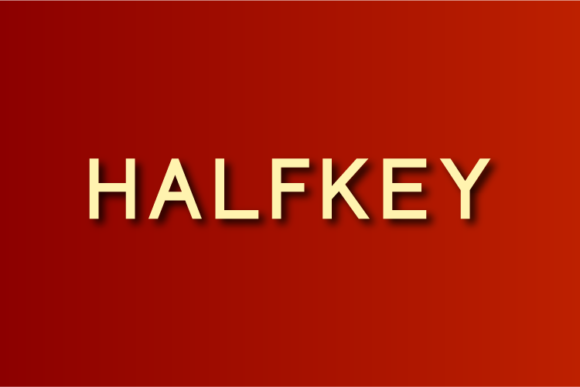
The Birth of a Beautiful Design Moment
Have you ever been scrolling through your social media feeds, and suddenly a beautifully designed graphic stops you in your tracks? Maybe it’s a stunning logo, an elegant invitation, or a clever advertisement that makes you pause and take a closer look. Whatever it is, it’s likely that the Halfkey Font played a starring role in making that design moment truly unforgettable.
As a versatile and modern sans serif typeface, the Halfkey Font is the perfect tool for designers looking to elevate their projects with a touch of sophistication and elegance. With its extensive character set, including upper characters, numbers 0-9, and a range of punctuation and symbols, this font is the ultimate go-to for any creative project. Whether you’re designing a logo, creating a wedding invitation, or crafting a compelling advertisement, the Halfkey Font is sure to bring your vision to life.
Key Features of Halfkey Font
- Unique Characteristics: Halfkey Font features a unique blend of geometric and organic shapes, resulting in a distinctive and modern aesthetic.
- Character Set: The font includes a wide range of characters, including uppercase and lowercase letters, numbers, punctuation marks, and special characters, making it suitable for use in a variety of contexts.
- Language Support: Halfkey Font supports a wide range of languages, including English, Spanish, French, German, Chinese, Japanese, and many others, making it a versatile choice for global communication.
Halfkey Font Review
Overall, I’d say the Halfkey Font is a solid choice for designers looking for a clean and modern sans-serif font. ✨
- Legibility – The font is highly legible, making it perfect for body text and digital interfaces.
- Neutral Aesthetic – Halfkey’s neutral tone makes it suitable for a wide range of designs, from corporate to creative projects.
- Font Pairing – The font’s clean lines and geometric shapes make it easy to pair with other sans-serif fonts, creating a harmonious design.
- Lack of Expressiveness ⚠️ – Halfkey’s neutral tone can make it feel somewhat generic, lacking the expressiveness of more unique fonts.
- Not Ideal for Headlines ⚠️ – The font’s simplicity makes it less suitable for headlines, where a more dramatic font is often preferred.
Overall, I’d give the Halfkey Font 3.5 out of 5 stars. While it’s a solid choice for everyday design needs, it may not be the best fit for projects that require a bolder or more expressive font.
Getting the Most Out of Halfkey Font
To get the most out of the Halfkey font, consider the following tips:
- Use it for headings and titles to add a touch of sophistication.
- Pair it with other fonts to create a unique and stylish combination.
- Experiment with different font sizes and colors to achieve the desired effect.
The Halfkey font is commonly used in:
- Designing business cards and letterheads.
- Creating posters and flyers.
- Developing branding materials and logos.
Alternatives to Halfkey Font for Designers
1. Arial Rounded
Arial Rounded is a sans-serif font that offers a friendly and approachable feel. It is suitable for use in body text and is a good choice for websites and applications where a clean and modern look is desired.
Compared to Halfkey Font, Arial Rounded is more straightforward and lacks the unique character of Halfkey. However, it is a more versatile font that can be used in a wider range of contexts.
2. Museo Sans
Museo Sans is a geometric sans-serif font that is designed for digital use. It offers a modern and sophisticated feel, making it suitable for use in branding and marketing materials.